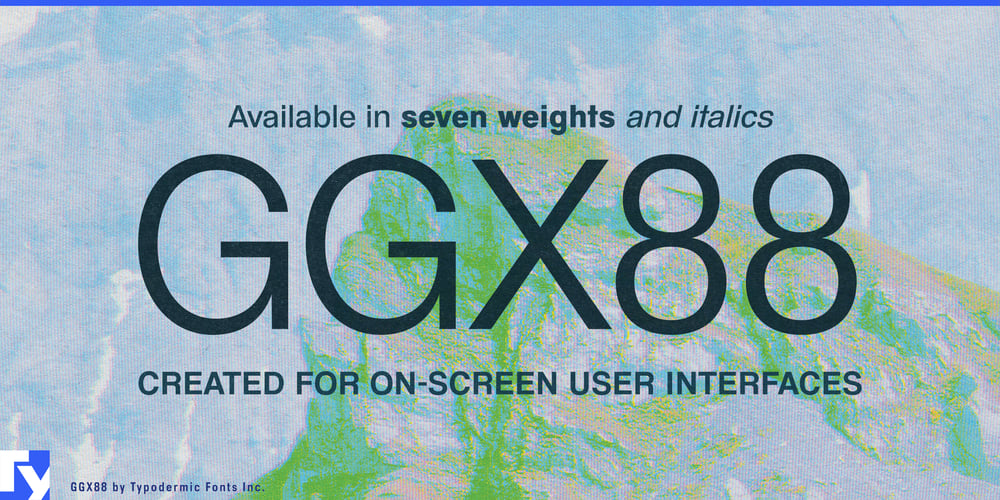
Ggx88 Font Family was designed by Ray Larabie and published by Typodermic. Ggx88 contains 14 styles and family package options. Introducing GGX88, the sans-serif typeface that brings Helvetica’s timeless elegance into the digital age. This isn’t just another Swiss-inspired font—it’s a meticulously crafted solution for the unique challenges of on-screen interfaces, particularly in the demanding world of television displays.GGX88 pays homage to Helvetica’s clean lines and neutral personality, but it’s built from the ground up for digital environments. Its true strength lies in its carefully engineered details, specifically designed to maintain clarity and consistency across a variety of screen renderers, resolutions, and autohinting systems. The secret weapon in GGX88’s arsenal is its aligned overshoots. This feature ensures that the typeface maintains its integrity and readability even when subjected to the varied and often unpredictable rendering environments of different TV screens and digital displays. Whether you’re dealing with high-definition smart TVs or lower-resolution sets, GGX88 stands strong, delivering crisp, legible text every time.With seven weights and matching italics, GGX88 offers the flexibility to tackle any on-screen challenge, from delicate UI elements to bold headlines. Its companion, GGX89, takes this screen-optimized design to new heights, offering a display version perfect for larger text and eye-catching titles. GGX88 doesn’t just look good—it performs. Rigorous testing in real-world television interface scenarios has honed this typeface into a reliable workhorse for designers and developers. It maintains its poise whether it’s navigating the complexities of an interactive menu, delivering clear closed captions, or standing out in a busy electronic program guide.Supporting a vast array of Latin-based European and some Cyrillic-based writing systems, GGX88 ensures your interface maintains its clarity and professionalism across linguistic boundaries. From Albanian to Zulu, this font speaks the universal language of good design. Choose GGX88 when you need typography that doesn’t just mimic Helvetica’s classic appeal, but evolves it for the digital era. It’s the ideal choice for designers who understand that on-screen legibility is just as crucial as style. Let GGX88 be the voice of your most user-friendly interfaces, transforming ordinary screens into extraordinary viewing experiences.In a world where digital clarity can make or break user engagement, GGX88 stands as a beacon of reliability and style. Get GGX88 now and bring precision and digital optimization to your next interface design.